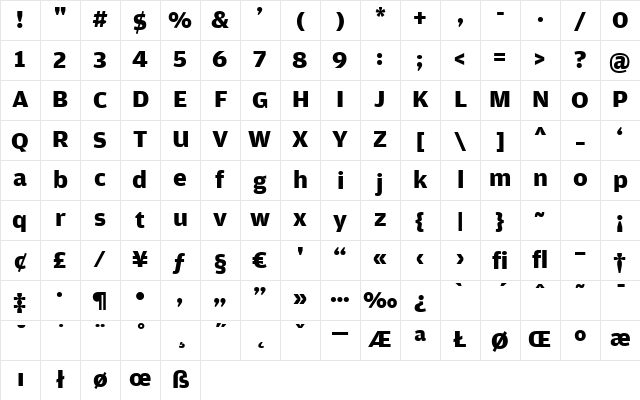
AmplitudeWide-Bold Regular
Foundry: The Font Bureau, Inc
Designer: Christian Schwartz
Design Context for AmplitudeWide-Bold
AmplitudeWide-Bold is a composed and adaptable typeface that performs quietly and consistently across a wide range of design contexts. Its bold stroke weight gives it real presence on the page.
Pro Tip: Use AmplitudeWide-Bold in both headline and body roles to test its range before committing to a single application.